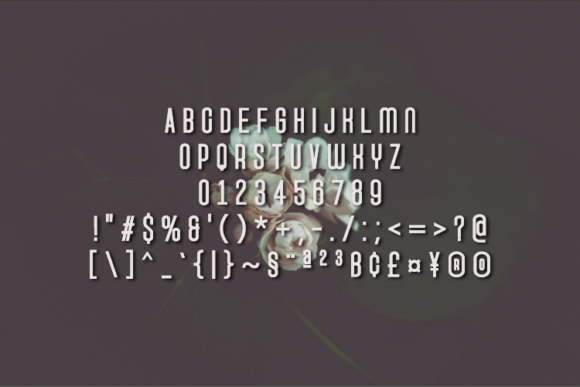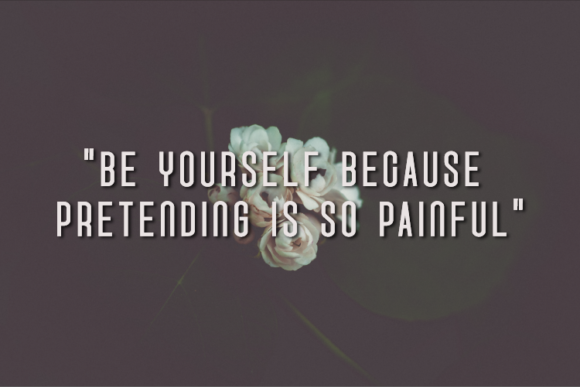
Introduction to Rosexelfy Font
Rosexelfy is a clean and simple sans serif font.
With smooth and delicate lines, this font works beautifully for logos, branding, and web headings .
Key Features of Rosexelfy Font
Why Choose Rosexelfy Font?